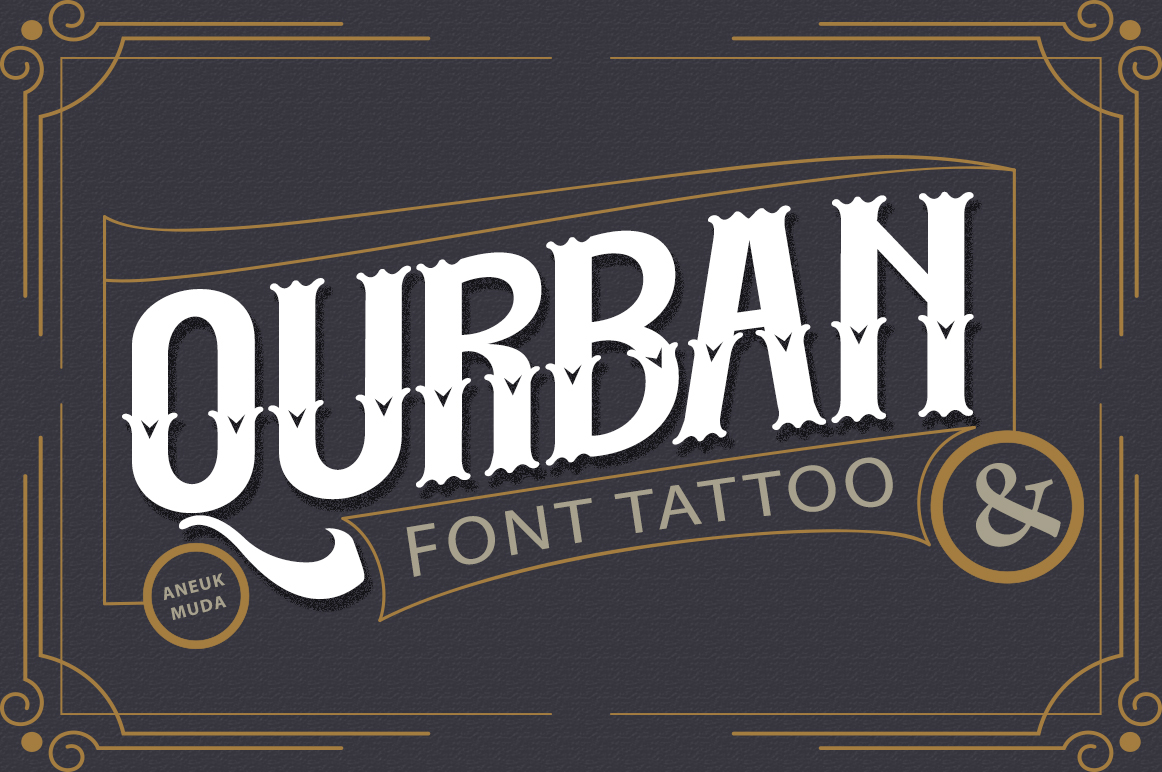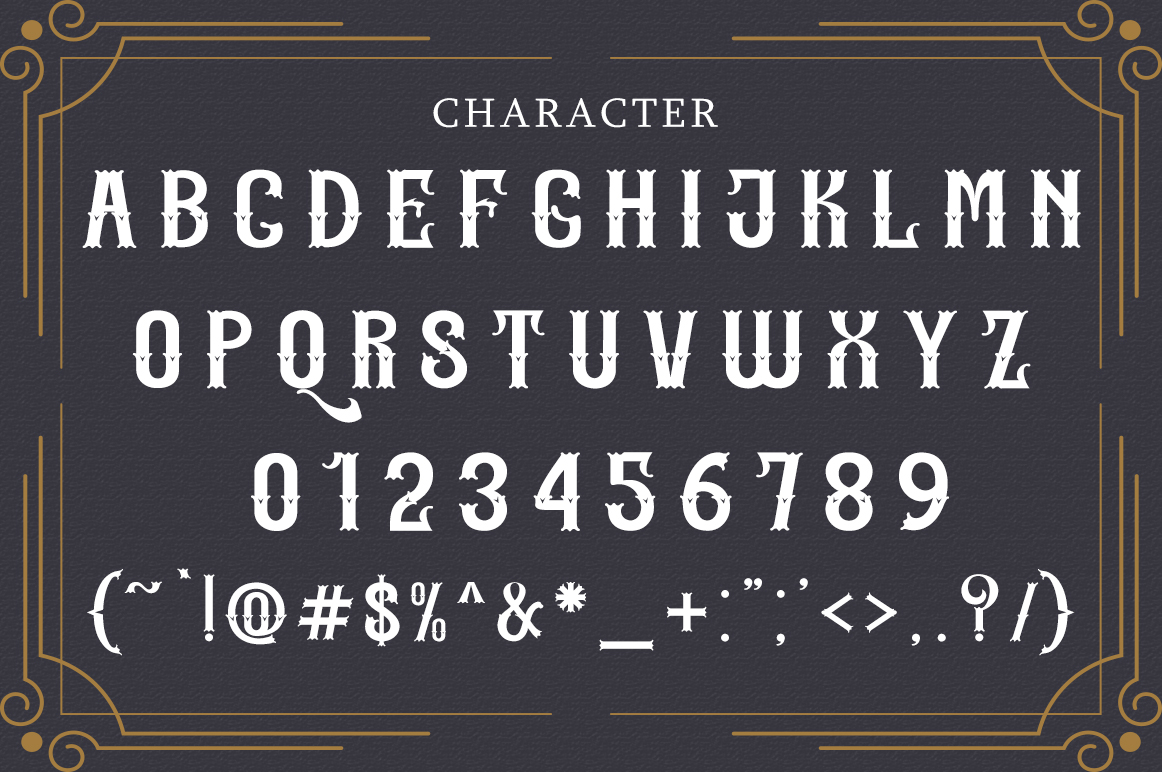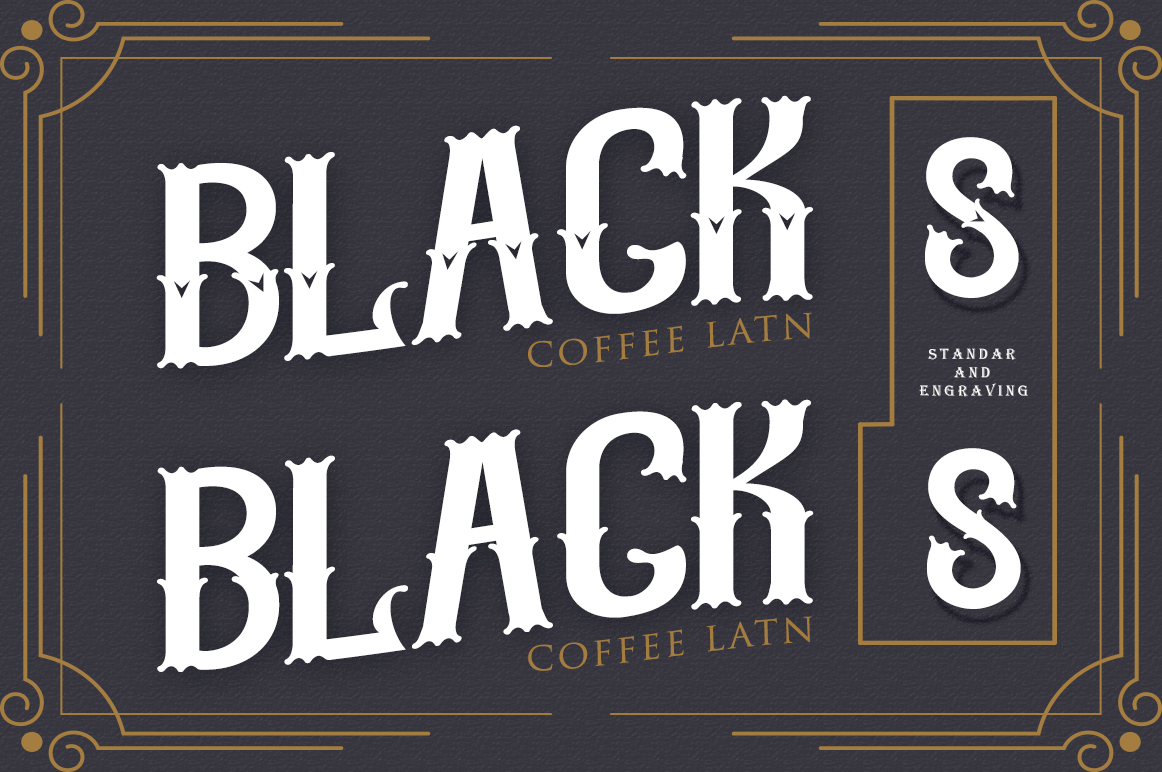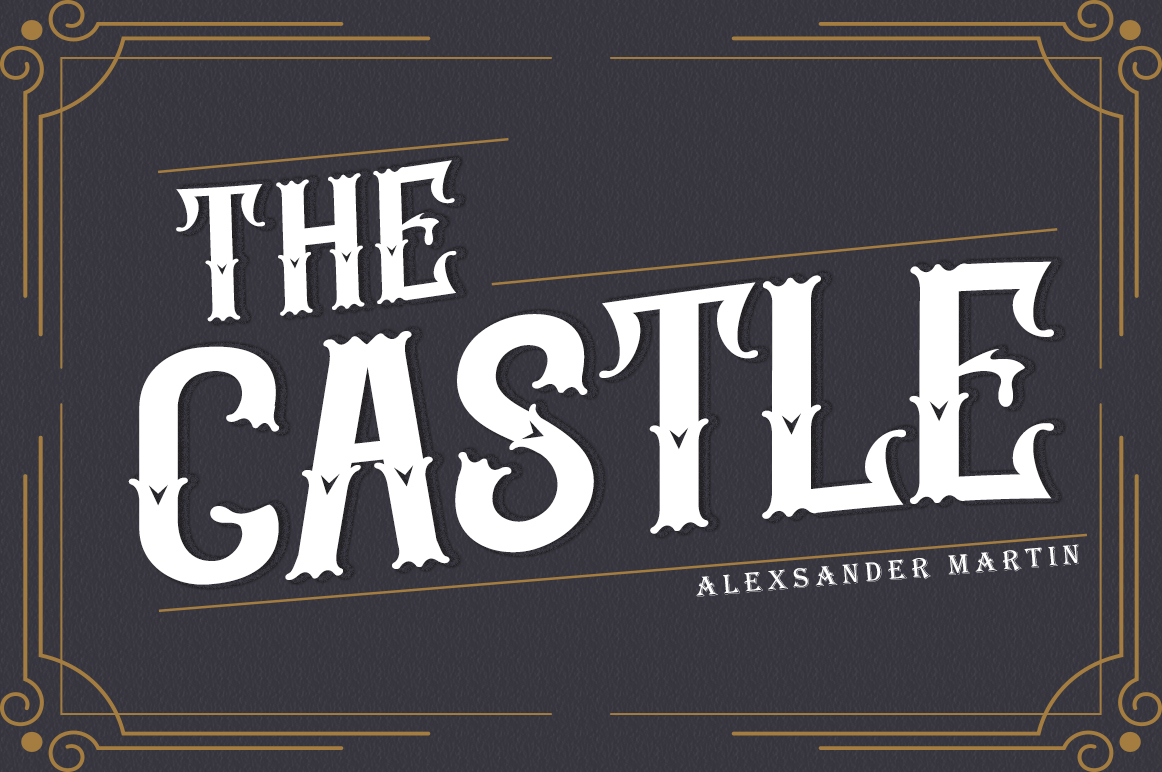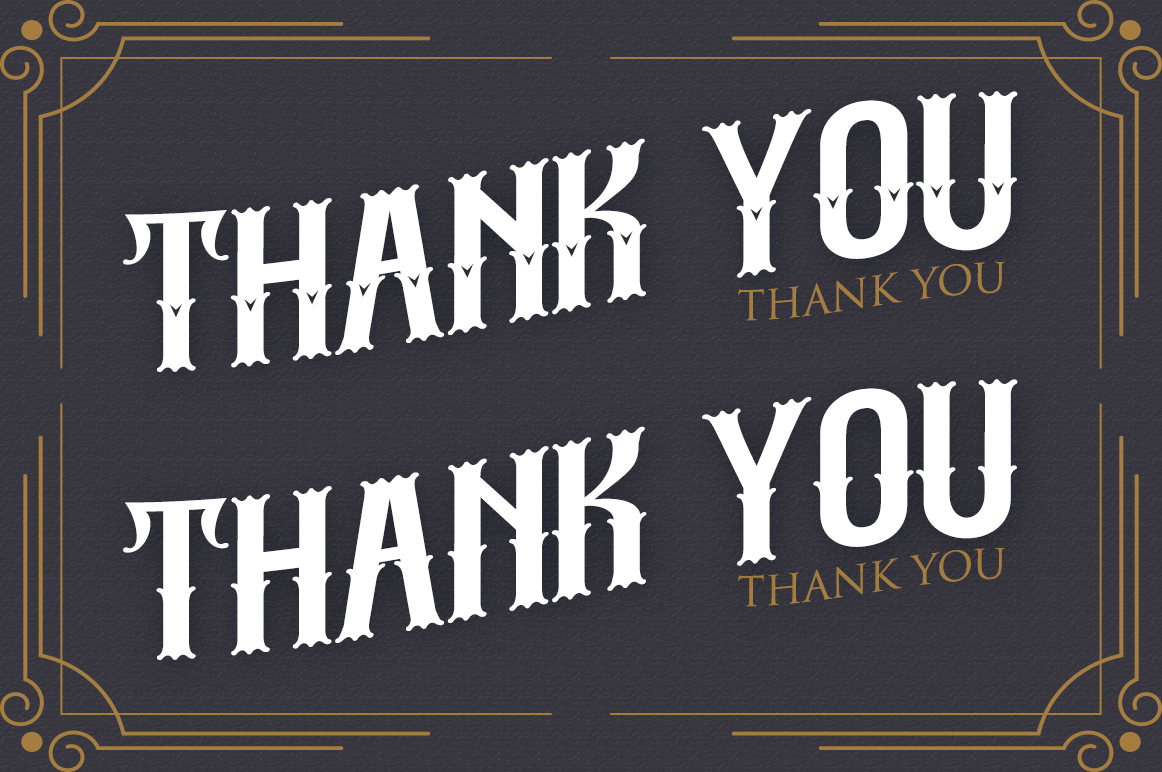
Qurban Font
About Qurban Font
Qurban is a beautiful and unique blackletter font. It has a classy style that will take your upcoming crafting projects to the next level!